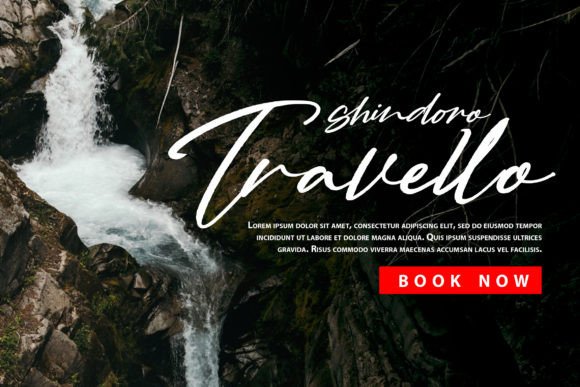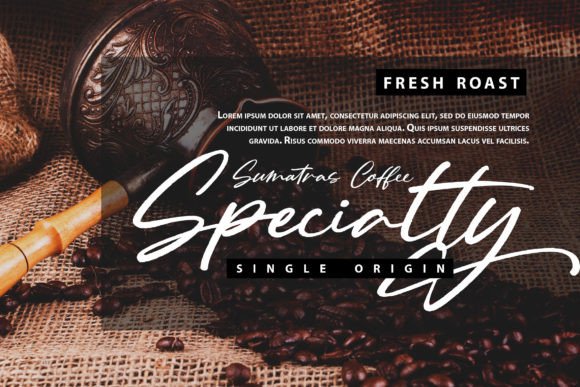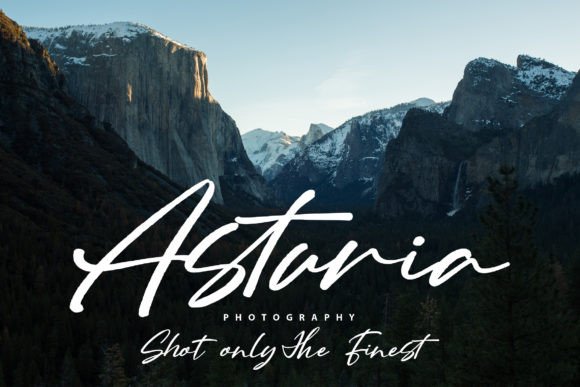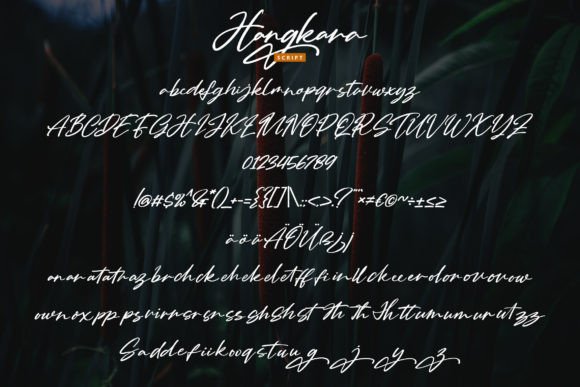
Hangkara Font: Elevate Your Designs with Elegance and Personality
In the world of typography, a font can make or break the aesthetic of a design. For those seeking a unique and elegant handwritten touch, the Hangkara Font is an exceptional choice. This beautifully crafted font is perfect for designers and crafters looking to infuse their projects with a personalized style. Whether you’re working on wedding invitations, thank you cards, greeting cards, logos, or any other design that requires a touch of sophistication, Hangkara is sure to impress.
The Beauty of Hangkara Font
Hangkara Font stands out with its distinctive, elegant handwritten appearance. Its fluid strokes and graceful curves bring a sense of luxury and refinement to any design. The font’s versatility allows it to be used across a wide range of applications, from formal events like weddings and anniversaries to more casual projects such as branding and advertising.
Key Features of Hangkara Font
- Unique and Elegant Design: Hangkara’s design is both unique and elegant, making it perfect for projects that require a personalized touch.
- Wide Range of Applications: From wedding invitations and greeting cards to logos and branding, Hangkara can elevate any design with its sophisticated look.
Applications of Hangkara Font
The versatility of Hangkara Font makes it suitable for a myriad of design projects. Here are some of the most popular applications:
- Wedding Invitations: Add a touch of elegance and romance to your wedding invitations with Hangkara. Its beautiful, flowing script is perfect for conveying the joy and sophistication of your special day.
- Greeting Cards: Whether it’s a birthday, anniversary, or holiday greeting, Hangkara can help you create cards that are both heartfelt and visually appealing.
- Logos and Branding: For businesses looking to establish a personal and luxurious brand image, Hangkara can be a great choice. Its unique style can help your brand stand out from the competition.
- Thank You Cards: Express gratitude in style with Hangkara. The font’s elegance makes it ideal for thank you cards that you want to send to clients, customers, or loved ones.
Tips for Using Hangkara Font
To make the most of Hangkara Font, consider the following tips:
- Pair with Complementary Fonts: While Hangkara is beautiful on its own, pairing it with a complementary font can enhance its appeal. Choose fonts that complement its elegance without overpowering it.
- Experiment with Swashes: Take advantage of Hangkara’s PUA encoding to experiment with different swashes and glyphs. This can add a unique touch to your designs.
- Adjust Size and Color: Don’t be afraid to play around with the size and color of Hangkara. Its elegance can shine through in various sizes and color schemes, allowing you to match it perfectly with your design.
Hangkara Font is a versatile and elegant handwritten font that can add a personalized touch to a wide range of design projects. Its unique design, combined with PUA encoding for easy access to glyphs and swashes, makes it a valuable asset for designers and crafters. Whether you’re creating wedding invitations, logos, greeting cards, or any other design that calls for a sophisticated look, Hangkara is an excellent choice. With its ease of use and wide range of applications, Hangkara Font is sure to become a favorite in your design arsenal.